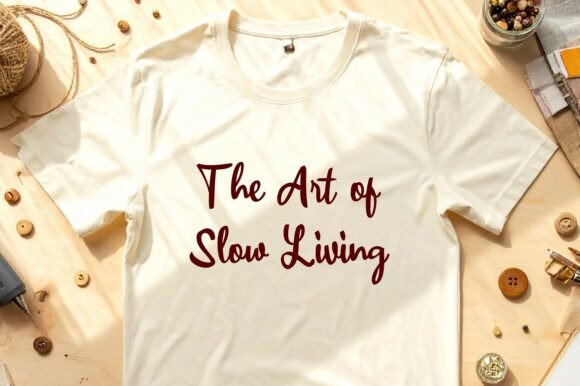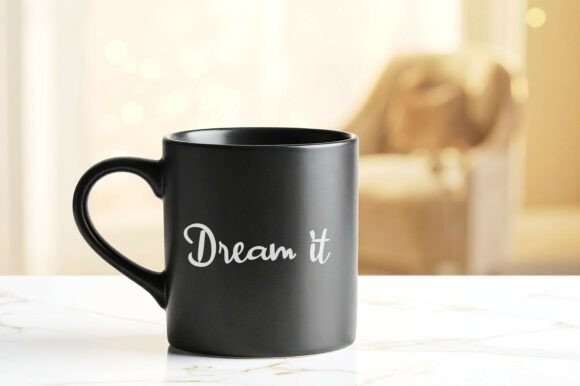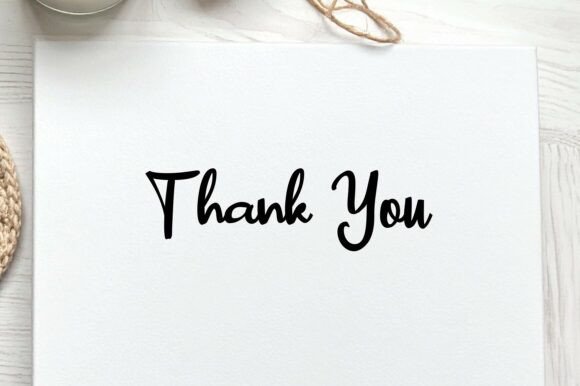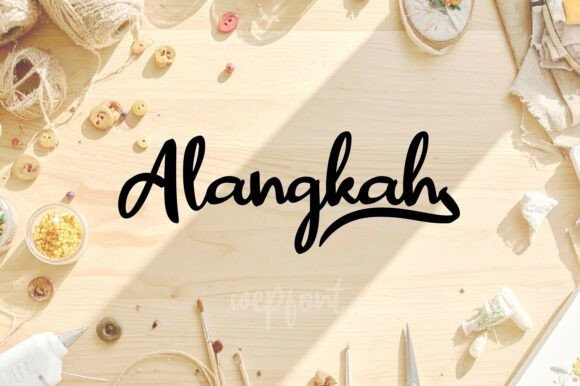
Introduction to Alangkah Font
Alangkah is a meticulously handcrafted script font with the allure and sincerity of genuine handwriting.
This font boasts an attractive blend of elegance and informality, creating an exceptional tool for designers hunting for that personal, heartfelt, and artistic element in their works Alangkah fares more than a veritable hand-drawn experience, with every character carefully crafted to echo the distinctive stroke of a pen.
Key Features of Alangkah Font
Why Choose Alangkah Font?
Alangkah Font offers exceptional quality and versatility, making it a valuable addition to your design toolkit. Whether you’re creating for personal projects or commercial use, Alangkah Font delivers professional results.